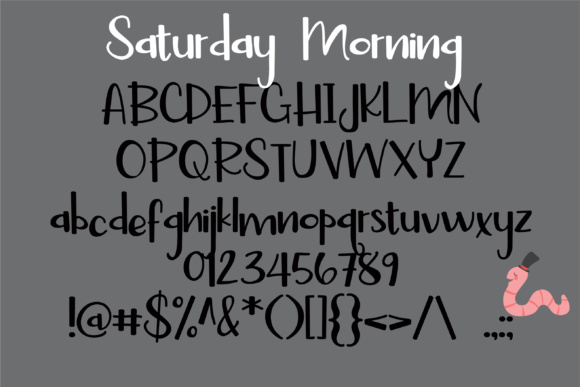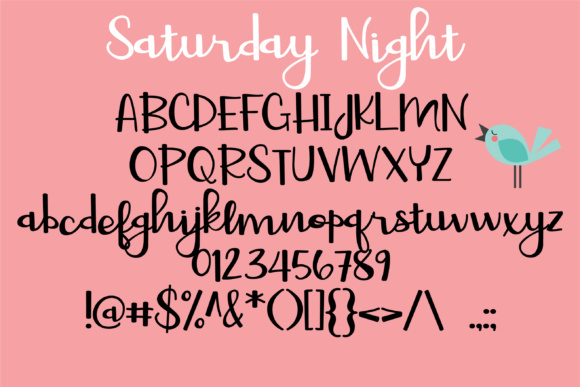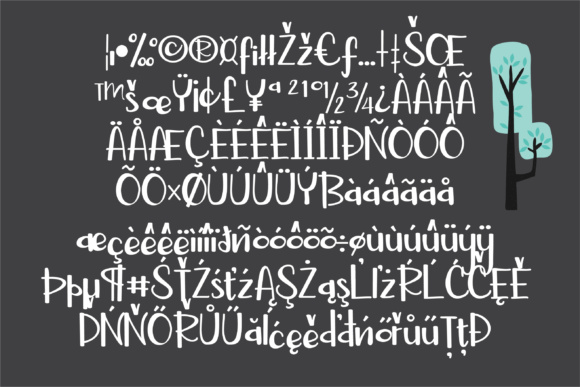
Introduction to Saturday Duo Font
This adorable font duo has one cursive font: PN Saturday Night, and a coordinating print font: PN Saturday Morning.
Use both together for a coordinated look .